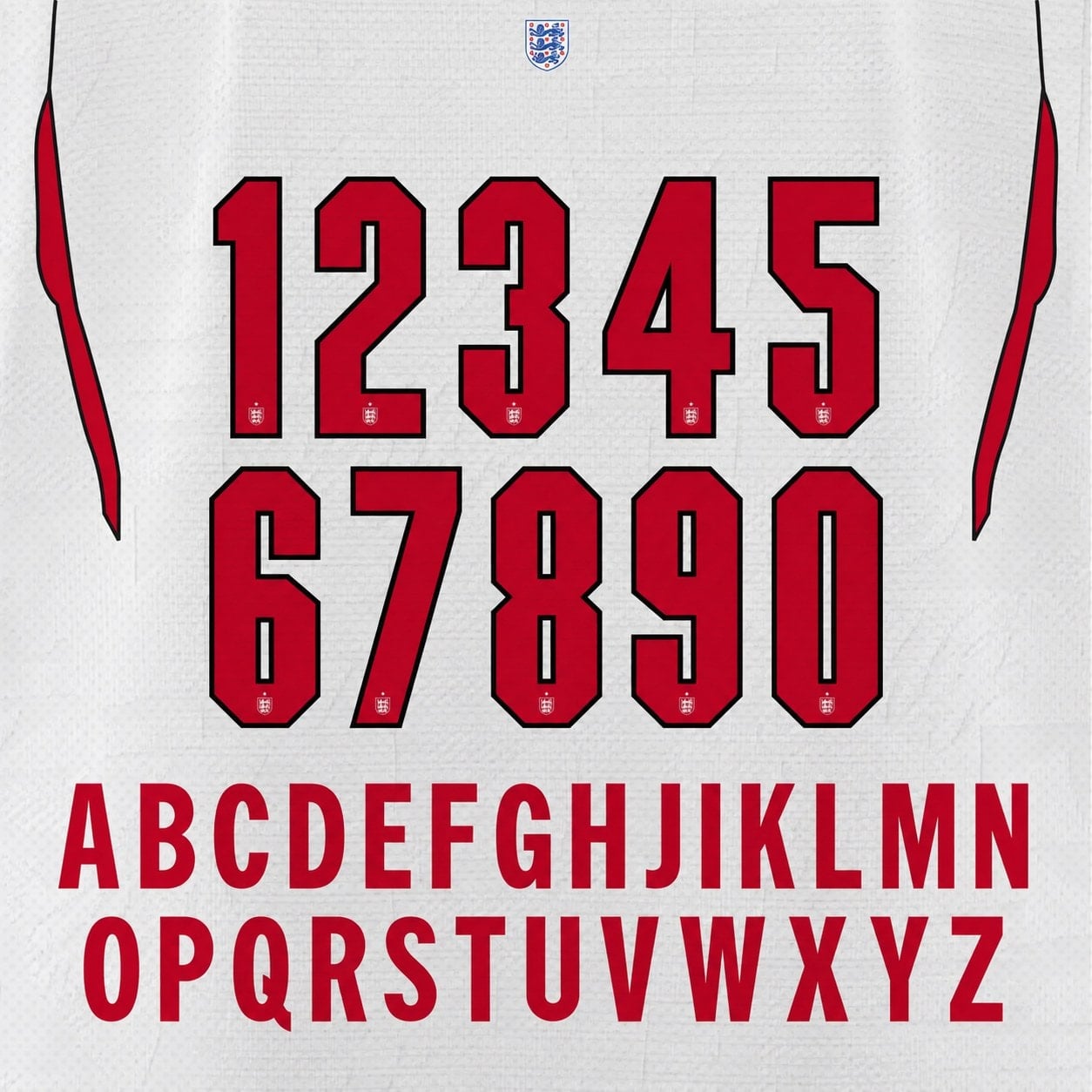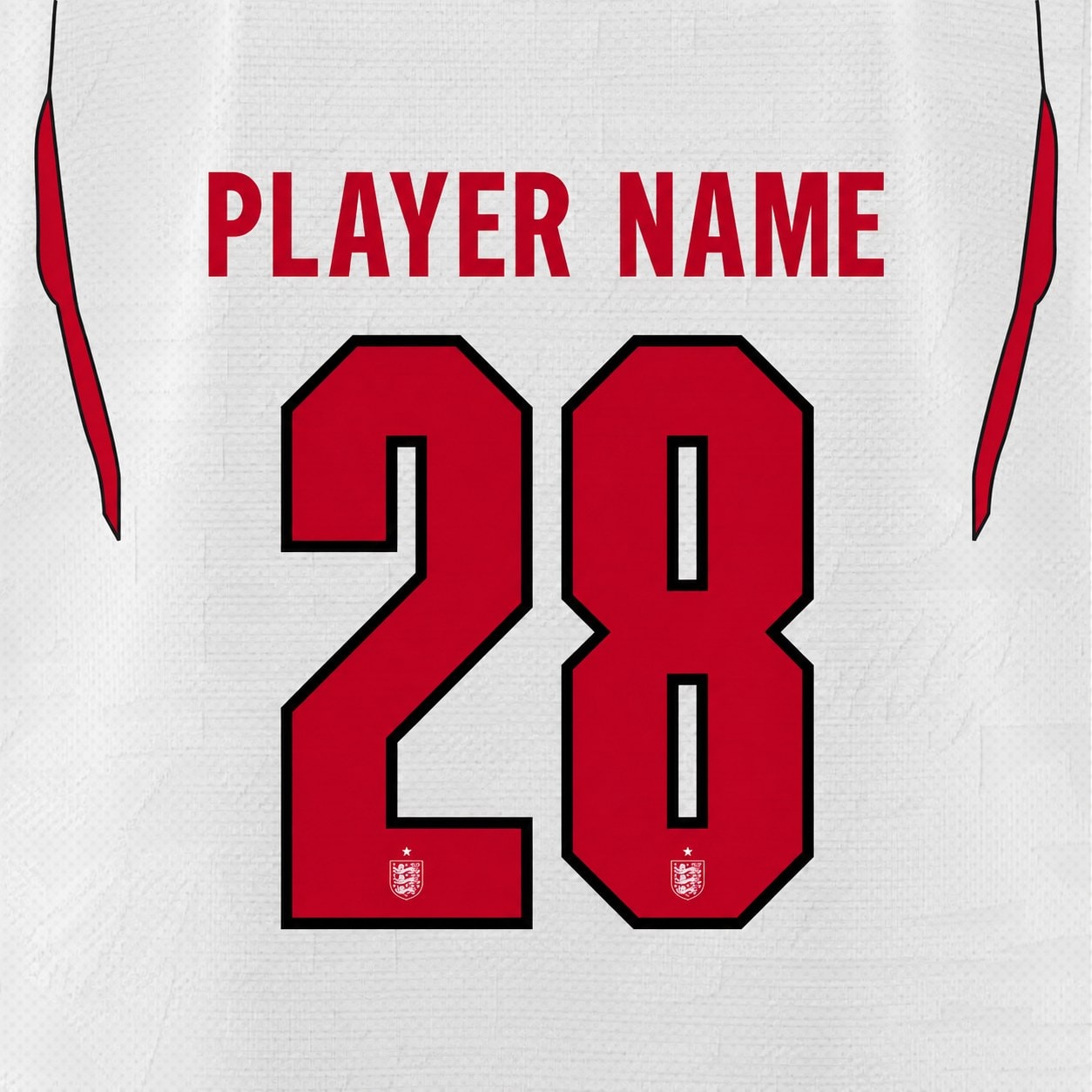
Complete England World Cup 2026 font set — every letter and every number in one kit, in the lettering style of the 2026 national team shirt, red colourway as shown.
- Full set included: all letters A–Z + all numbers 0–9, exactly as shown
- Fine crest detailing inside the numbers
- Make any name & number combination (e.g. KANE 9) — fits adult and kids jerseys